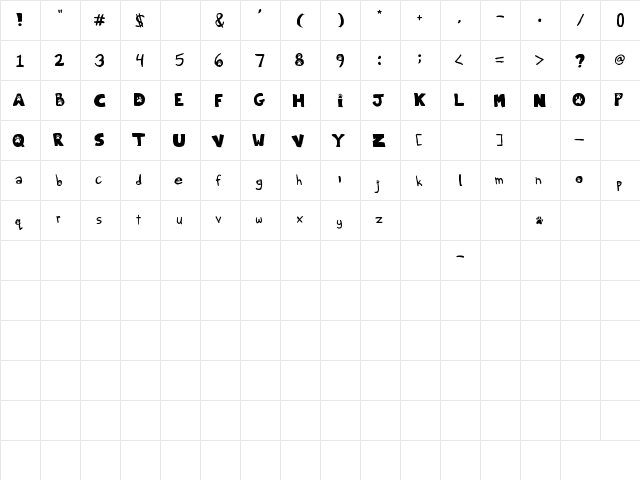
Soundtrack Howl Regular
Design Context for Soundtrack Howl Typeface
Soundtrack Howl is a composed and adaptable typeface that performs quietly and consistently across a wide range of design contexts.